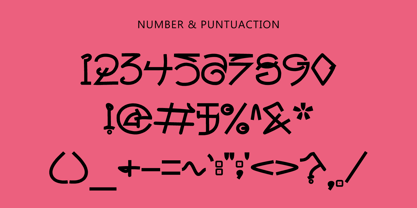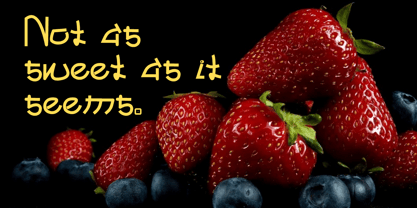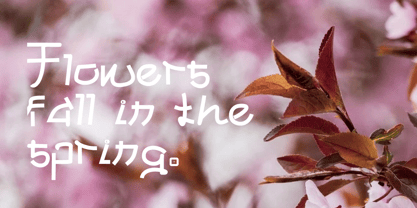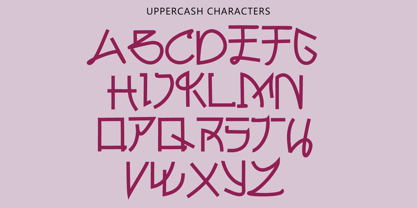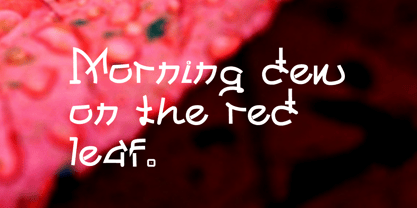
Tropopause
Tropopause is a captivating display font that blends modern elegance with an atmospheric charm. Its bold, flowing strokes and unique curves evoke the beauty of natural forms, reminiscent of winds and clouds at the boundary of the troposphere and stratosphere.
Key Features:
Style: Dynamic and artistic, suitable for modern designs.
Design Elements: Smooth curves and balanced proportions with a touch of creativity.
Versatility: Ideal for branding, headlines, posters, and creative projects that require a bold yet airy feel.
Mood: Atmospheric, elegant, and free-spirited.
Tropopause is perfect for designers seeking to create a standout visual identity with a font that feels both grounded and ethereal.